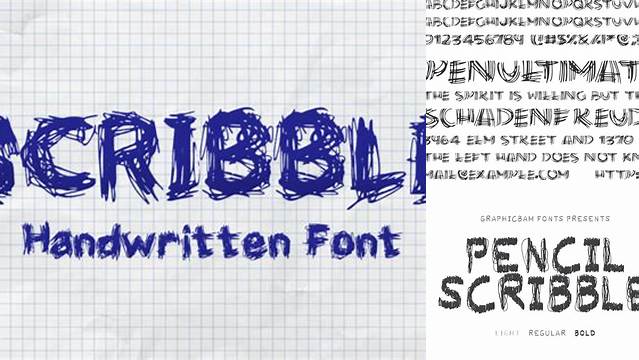
Download Free Scribble Fonts: Your Ultimate Guide
Hey design enthusiasts! Are you looking to inject a dose of personality and a handmade feel into your projects? Then you've stumbled upon the right place! This guide is all about scribble fonts free download, the perfect way to add that unique, personal touch. We'll dive deep into where to find these awesome fonts, how to use them, and even some tips and tricks to make your designs pop. So, grab a coffee, get comfy, and let's explore the wonderful world of scribble fonts! Whether you're a seasoned designer or just starting out, I hope this guide helps you find the perfect fonts for your project.
1. What Are Scribble Fonts and Why Use Them?
Alright, first things first: What exactly are scribble fonts? Well, they're fonts that mimic the look of handwriting, sketches, or doodles. Think of them as digital versions of handwritten notes, quick sketches, or even that cool graffiti art you saw the other day. The beauty of scribble fonts free download is their ability to instantly add a human touch to your designs. They break away from the sterile, sometimes cold, feel of standard fonts, and they bring a sense of warmth, creativity, and approachability. Using them is a great way to make your design more personal! So, why use them? Simple: they're incredibly versatile. You can use them for everything from invitations and greeting cards to website headers and social media graphics. They're perfect for conveying a playful, informal, or artistic vibe. They can also be used to create a sense of authenticity or add a touch of whimsy.
They are a fantastic choice when you want to make your designs stand out and connect with your audience on a more personal level. Imagine a wedding invitation with a handwritten-style font – it immediately feels more intimate and special, right? Or a website header that looks like it was scribbled by hand – it gives a sense of creativity and originality. They're a visual representation of personality, making your designs more memorable and engaging. So, whether you're designing for print or digital, scribble fonts free download is a great option to give your designs a unique appeal!
3. Different Styles of Scribble Fonts: Find Your Perfect Match
Scribble fonts free download come in a variety of styles. From the neatness of a pen to the wildest, you'll always find something that is perfectly suited for your design. They each create a unique visual effect, meaning there's something for every project. There's a type of scribble font for every aesthetic! First, we have the Handwritten Style. This style mimics natural handwriting, giving your design a personal and friendly feel. It's perfect for invitations, greeting cards, and anything that needs a human touch. Next, we have Marker Style. This style imitates the look of a marker or a felt-tip pen, with bold strokes and a slightly textured appearance. It's great for headings, posters, and anything that needs to grab attention. Following that, there's the Doodle Style. Doodle fonts incorporate playful doodles and sketches into the letters, creating a fun and whimsical effect. They're ideal for children's projects, websites, and anything that requires a lighthearted touch. There are also Graffiti Style fonts. This style resembles street art or graffiti, with bold, edgy, and expressive letterforms. It's excellent for designs that need to convey energy, rebellion, or a sense of urban style. Also, you can look for Brush Script Styles, which emulate the flowing strokes of a paintbrush, creating a sense of elegance and artistic flair. They're perfect for invitations, logos, and anything that requires a touch of sophistication. Finally, there's the Textured Style that incorporates textures like pencil shading, ink splatters, or rough paper effects.
Exploring these different styles of scribble fonts free download will help you understand what works best for your project and design goals. Keep in mind that the best font is the one that tells the best story for your design! Remember to choose a font that not only looks good but also aligns with the overall message and tone of your design.